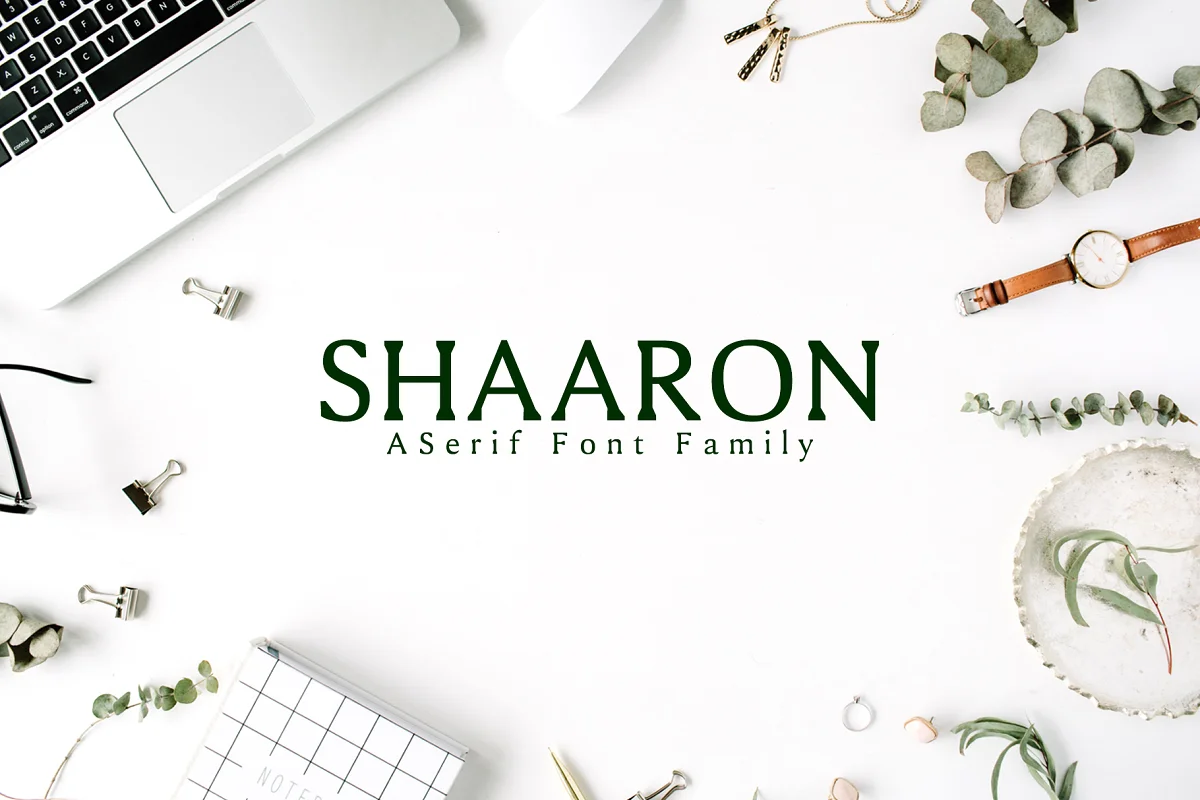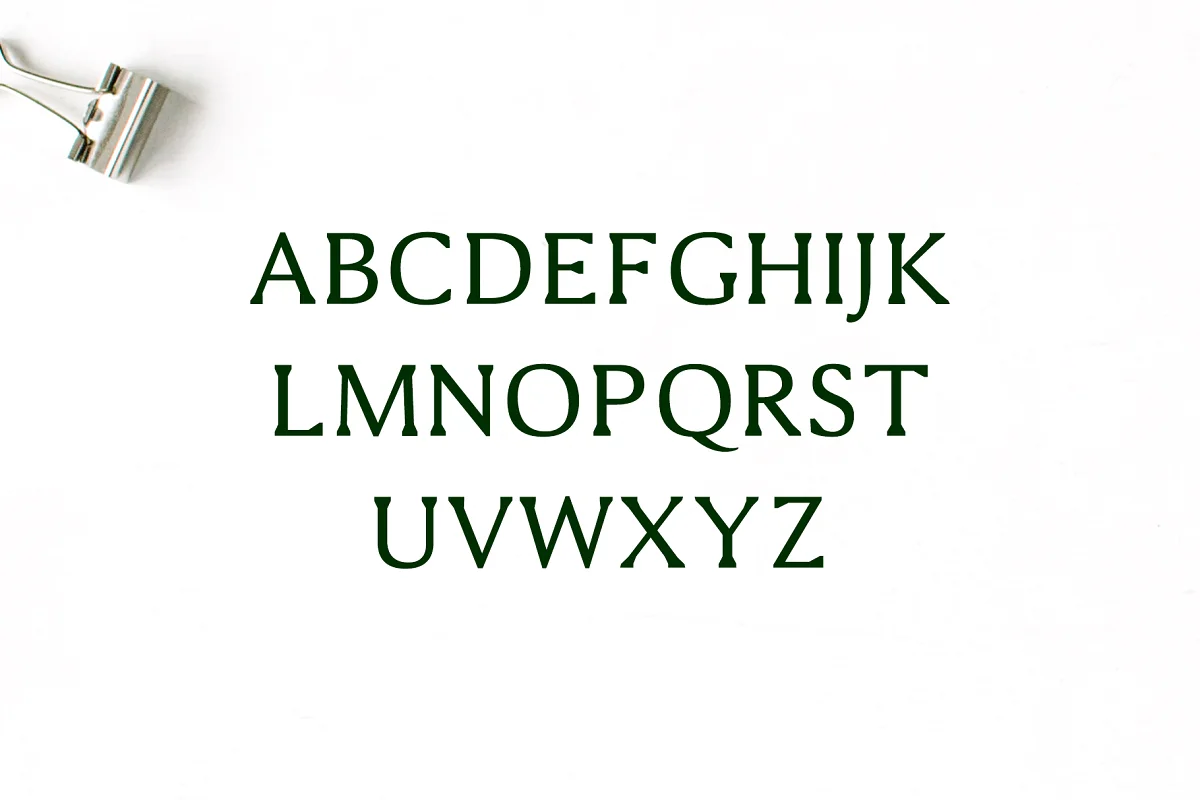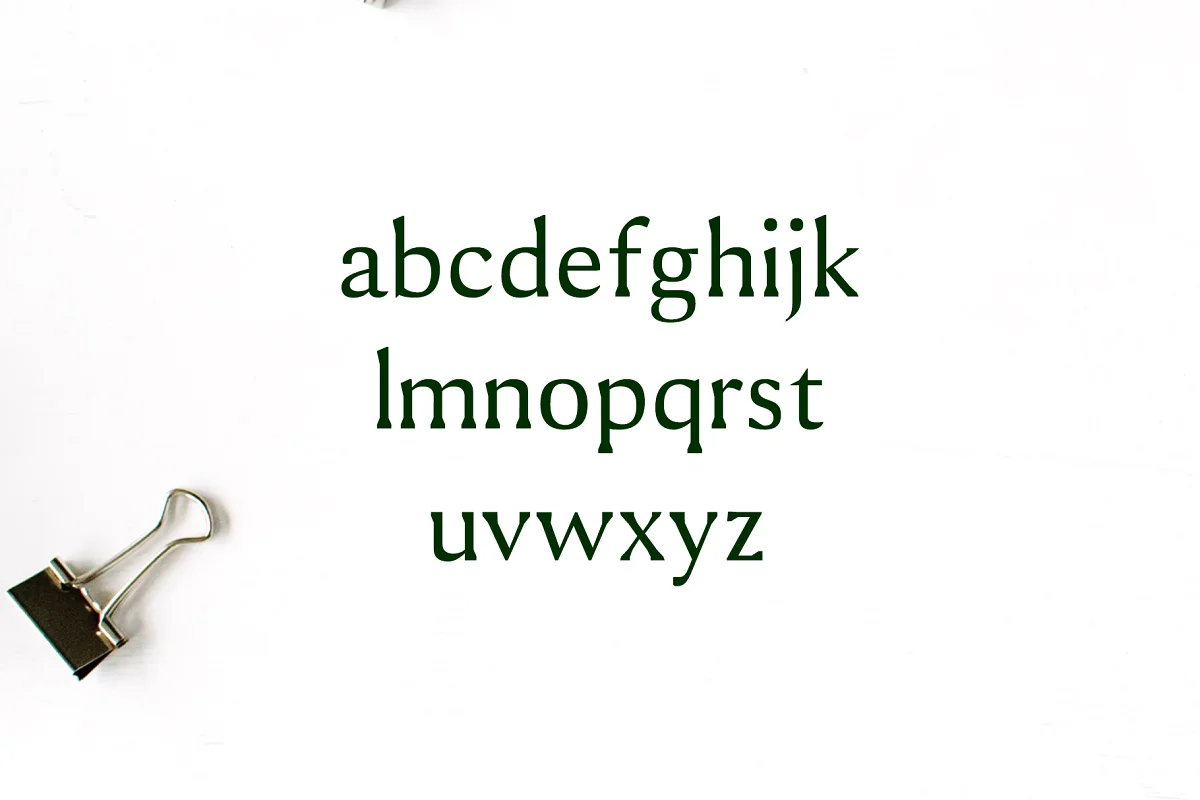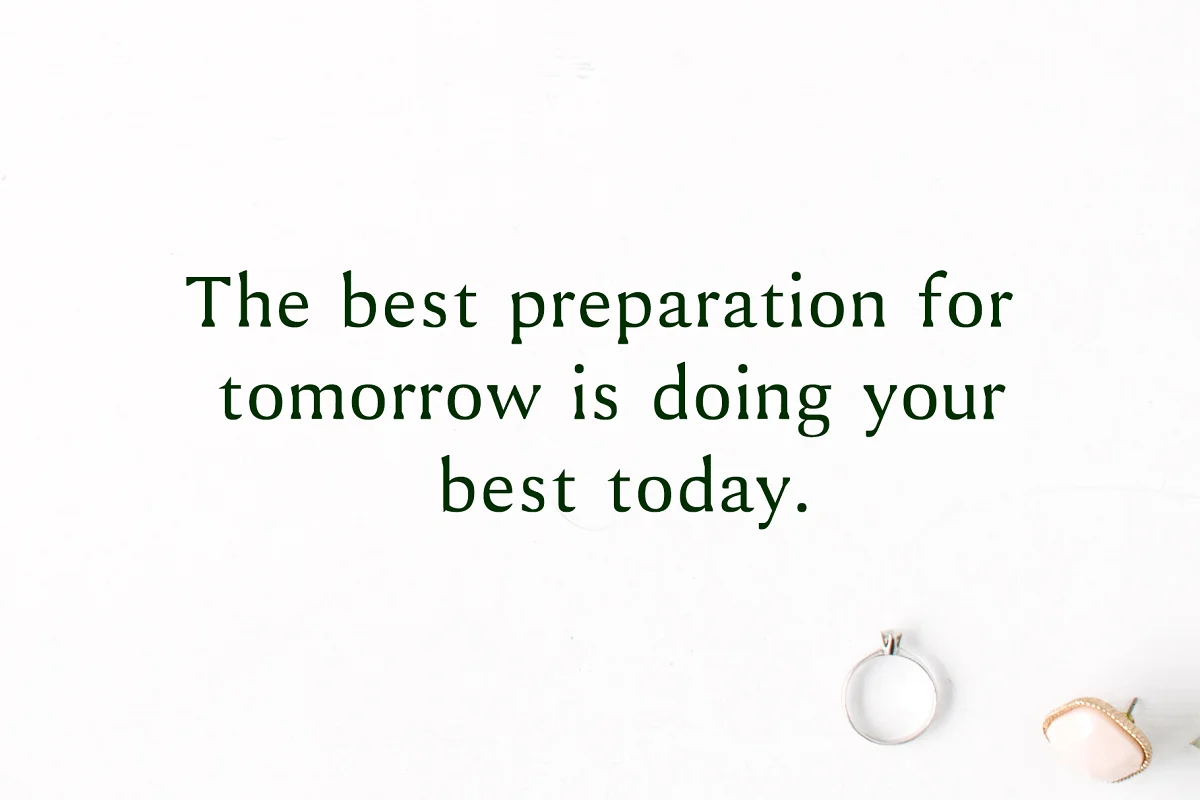
About the Shaaron A New Serif 2 Font
Shaaron A New Serif Font Family is a minimal serif font family, which contains 2 weights and It features a unique and modern serif look and feels.
Perfect for gorgeous logos, titles, web layouts, and branding. Sharon looks gorgeous in all caps with a wide-set spacing if you want to try a classy look, or beautiful on its own in capital and lowercase letters for something completely timeless.
- Uppercase Multilingual Letters
- Lowercase Multilingual Letters
- Numbers & Punctuation
- Non-English Characters ( Latin Supplement + Latin Extended-A)